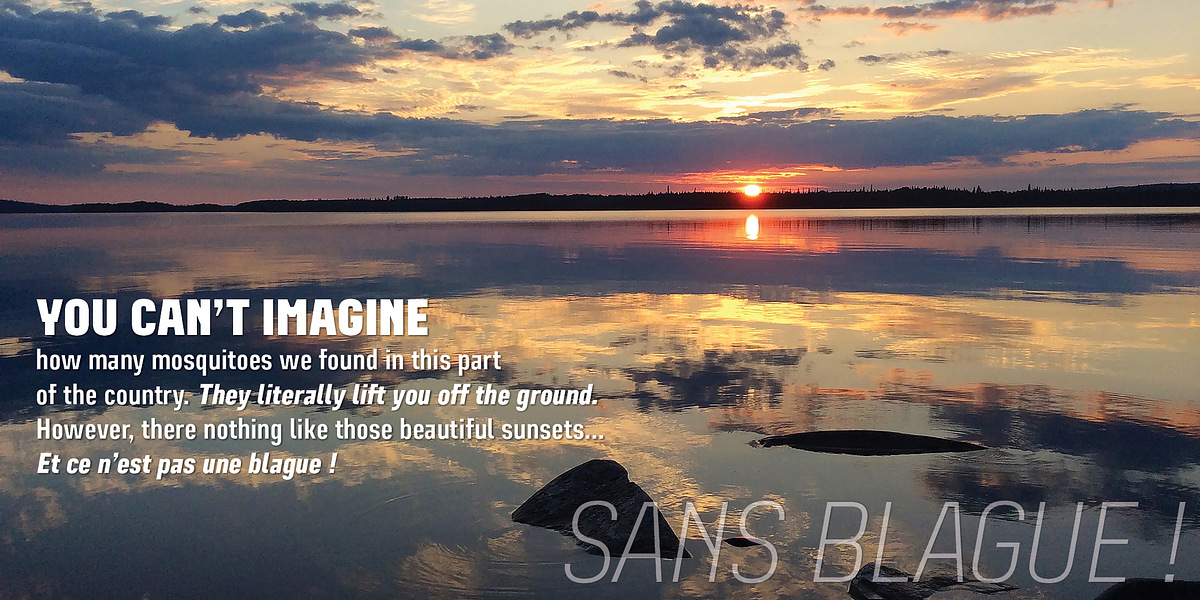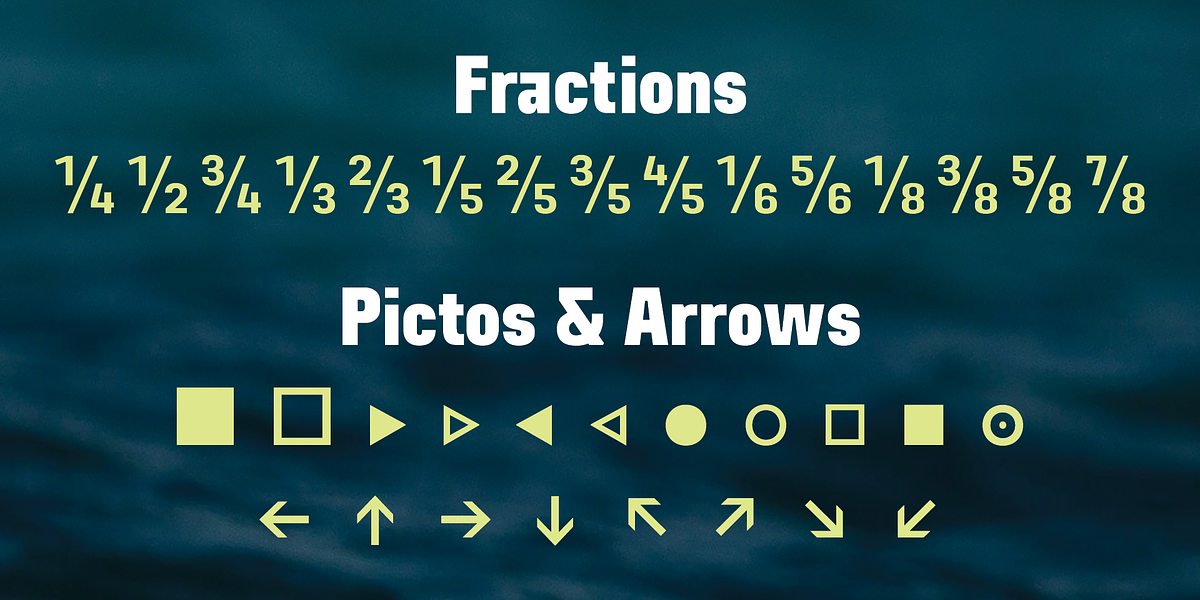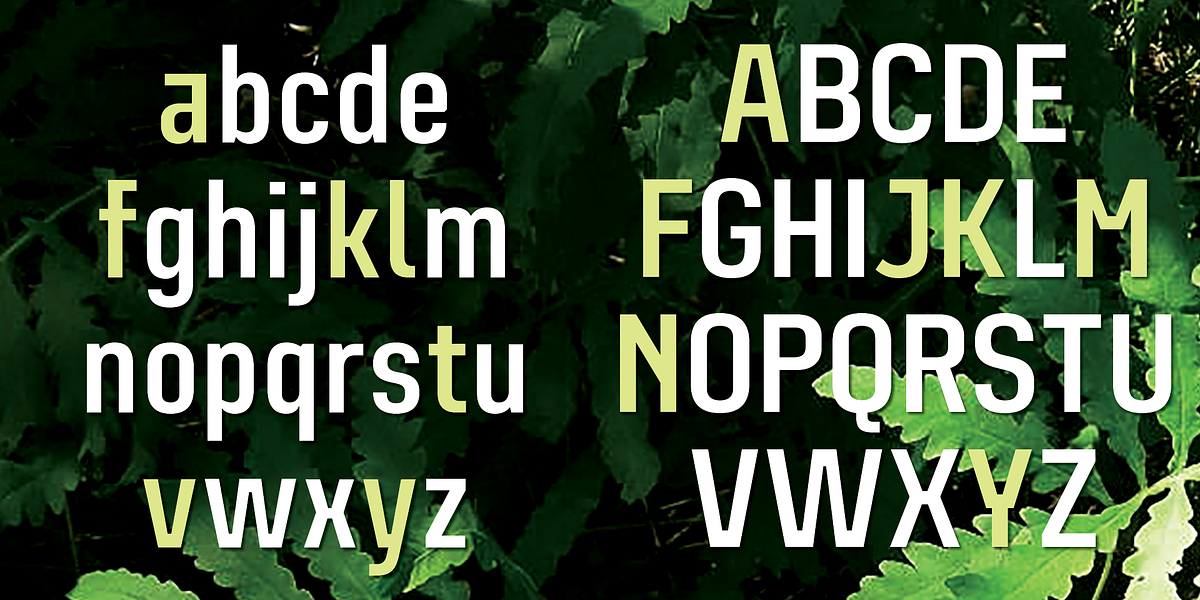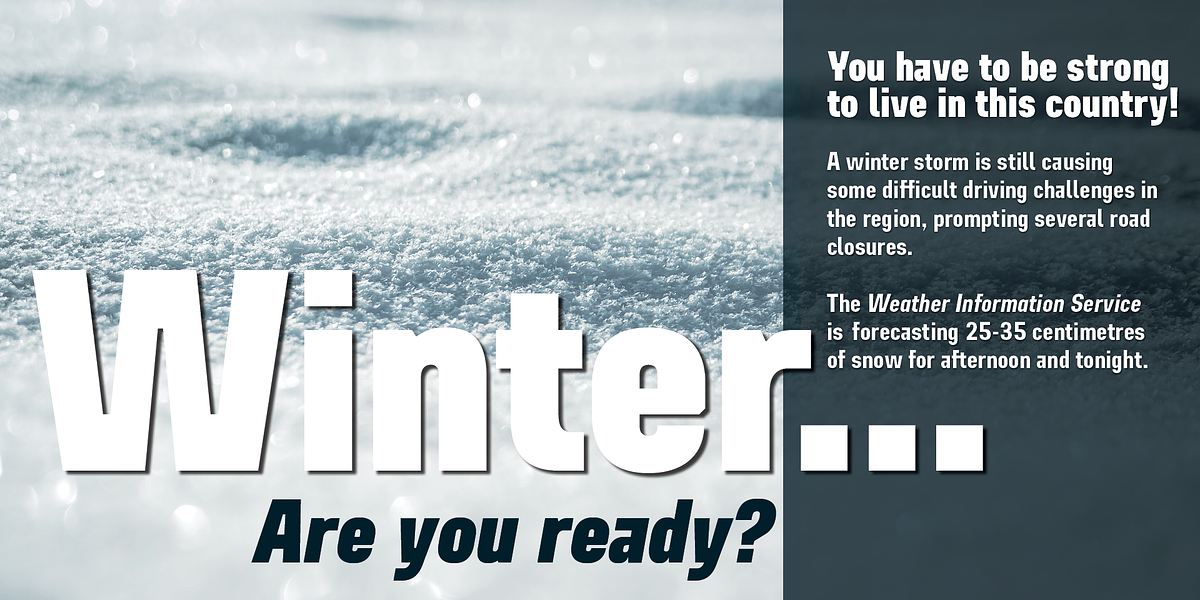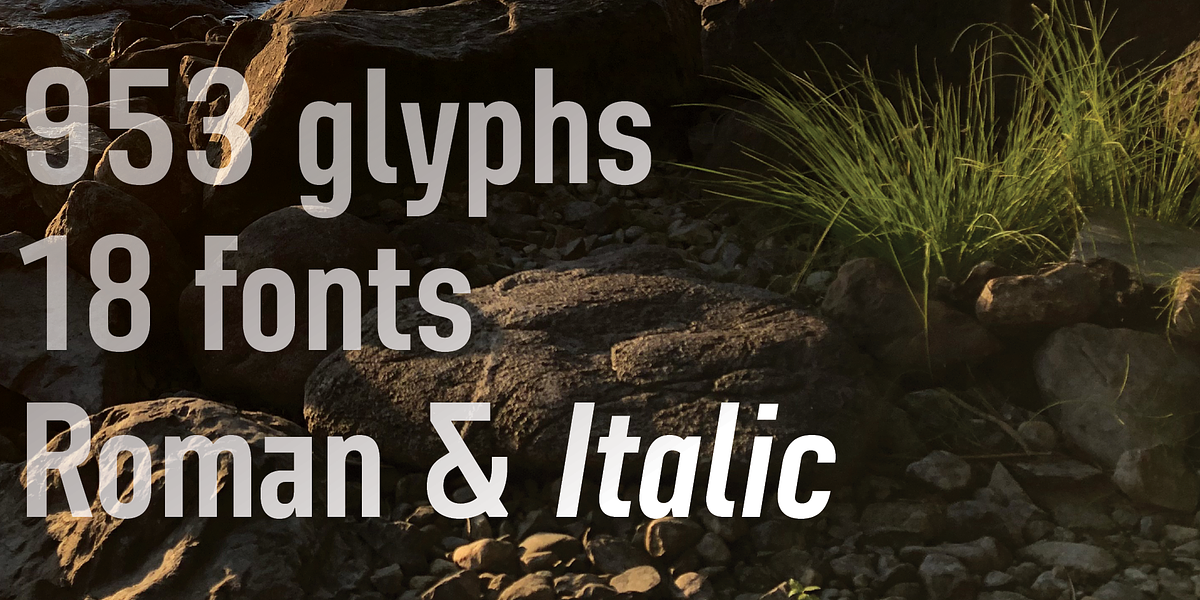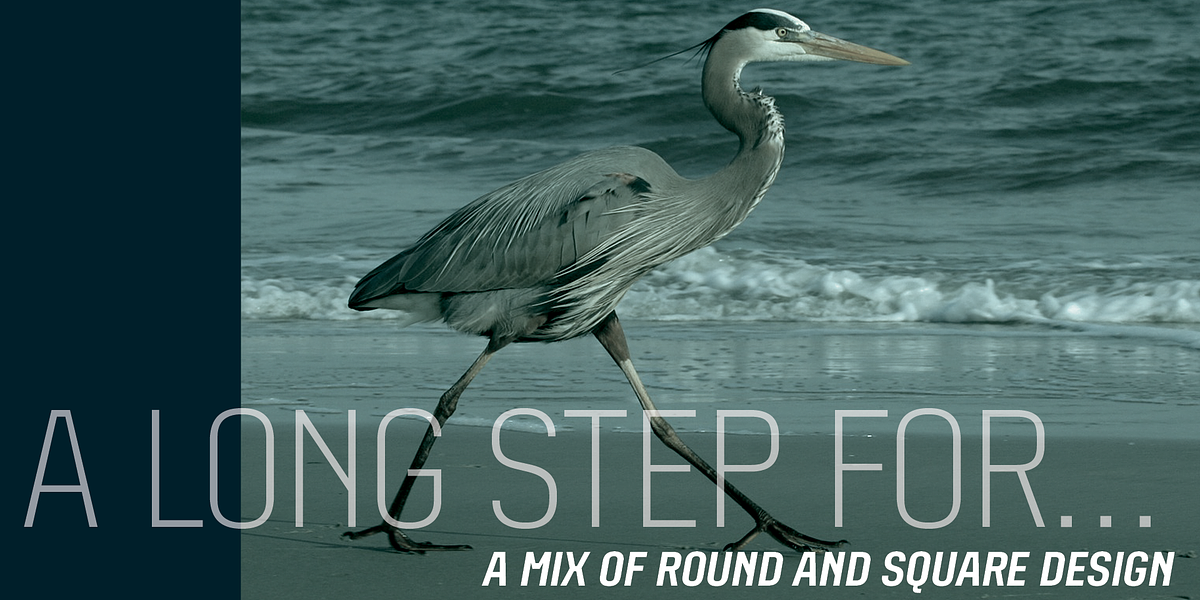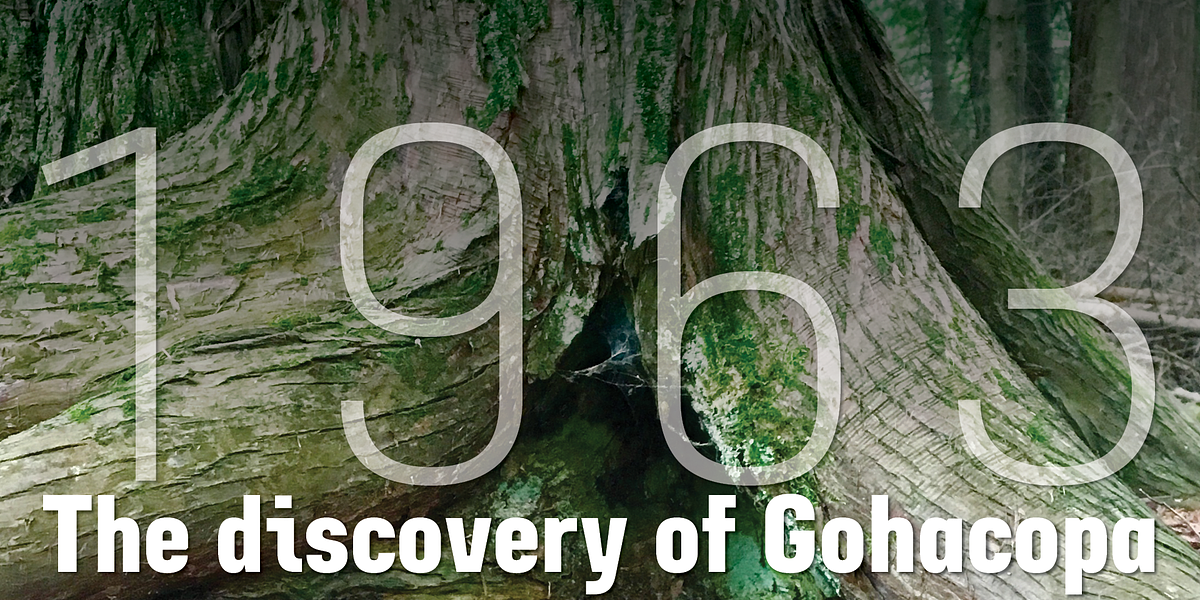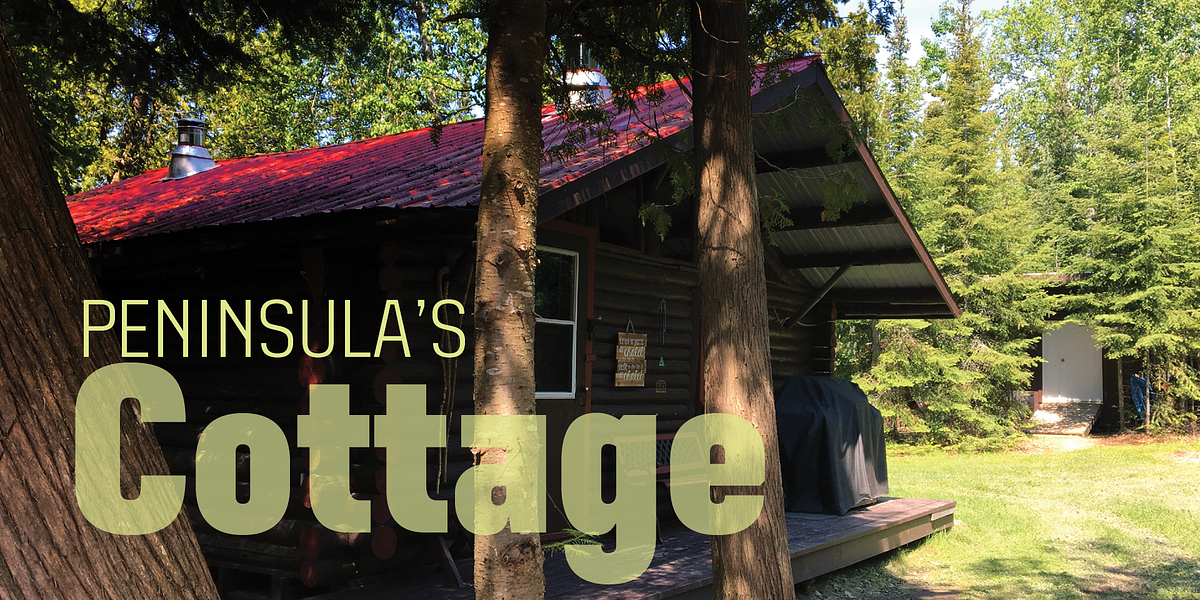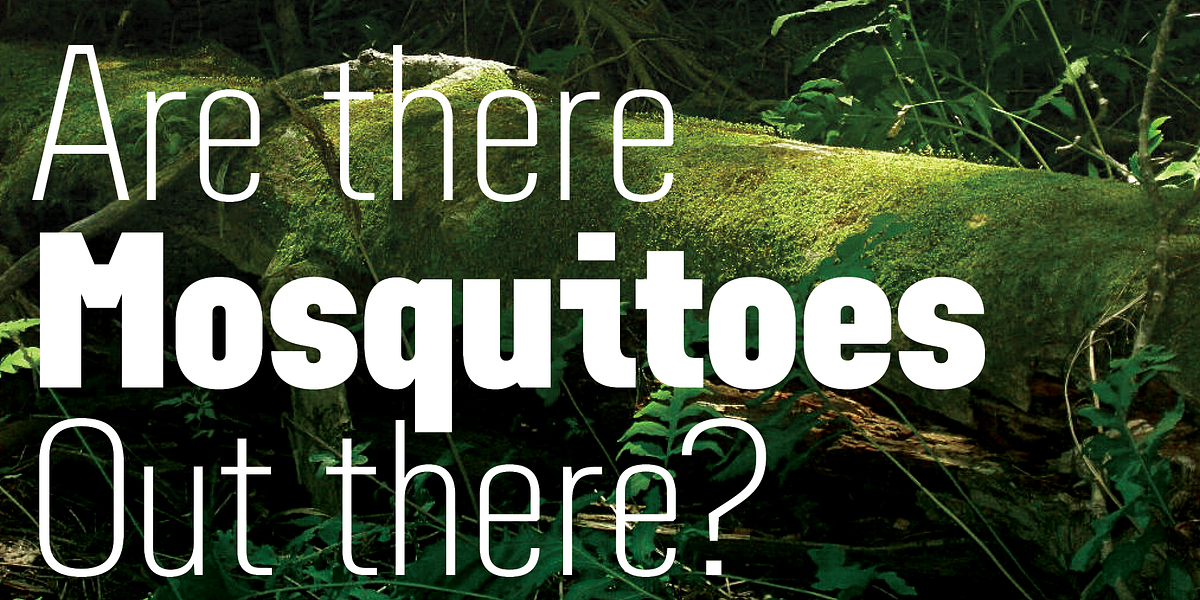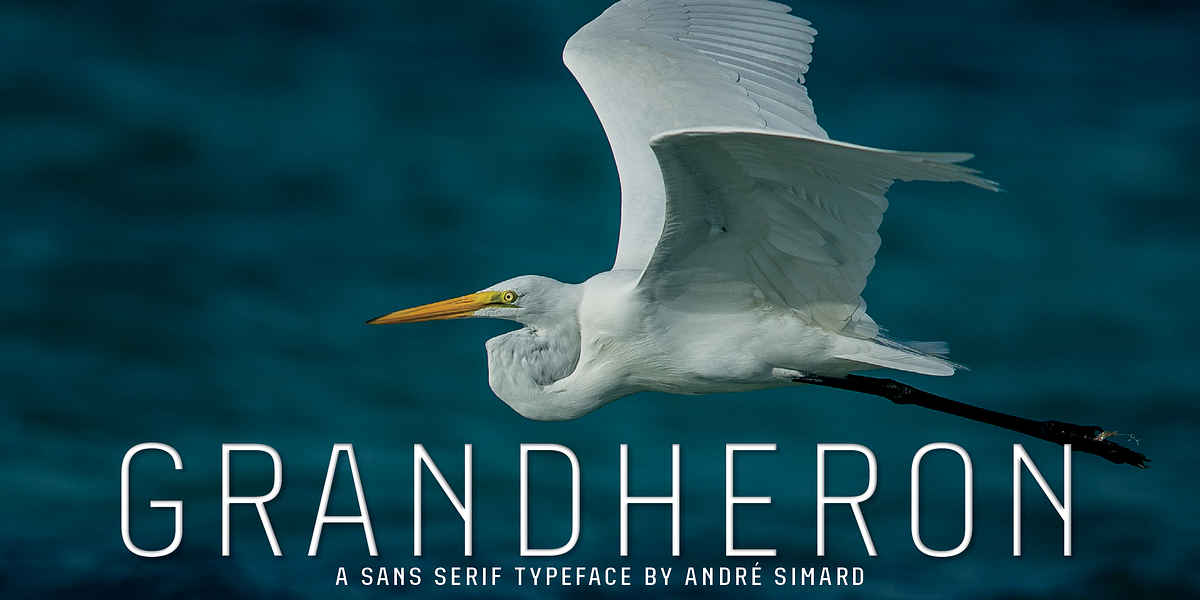
Grandheron Sans
Grandheron is a geometric sans-serif font designed for readability even in condensed sizes. It features distinct glyph designs and offers both Thin and Light weights, making it suitable for a variety of uses including headlines, subtitles, captions, and body text in magazines related to fashion, advertising, or corporate design.